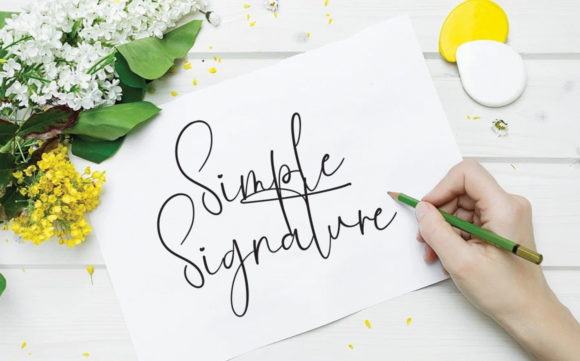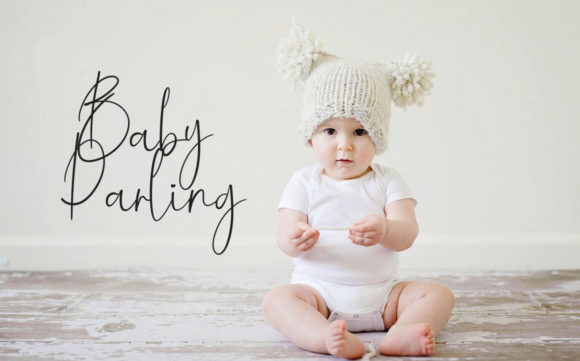
Easter Bunny Font
db-ku.com - Script & Handwritten -- Easter Bunny is a beautiful and flowing handwritten font. Use it for wall displays, wedding invitations, social media post logos, advertisements, product packaging, product designs, labels, photography, watermarks, invitations, stationery, and any project that requires impressive typography.